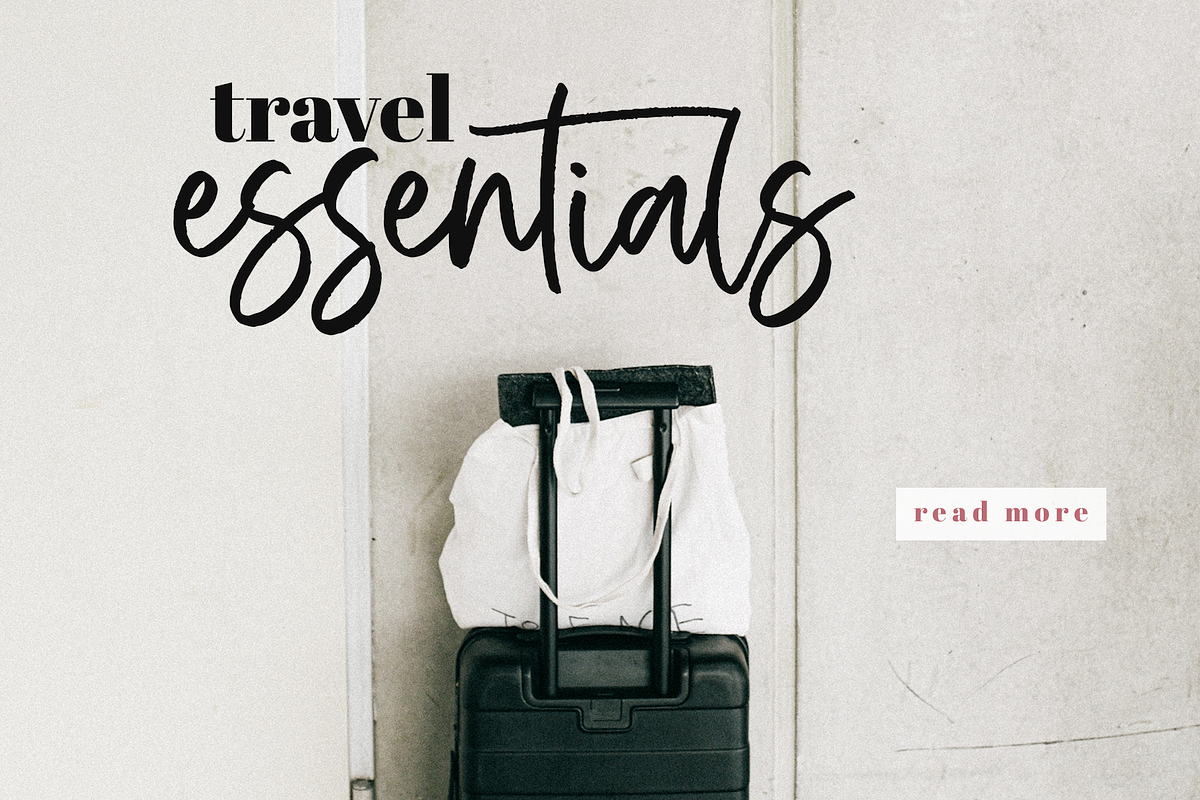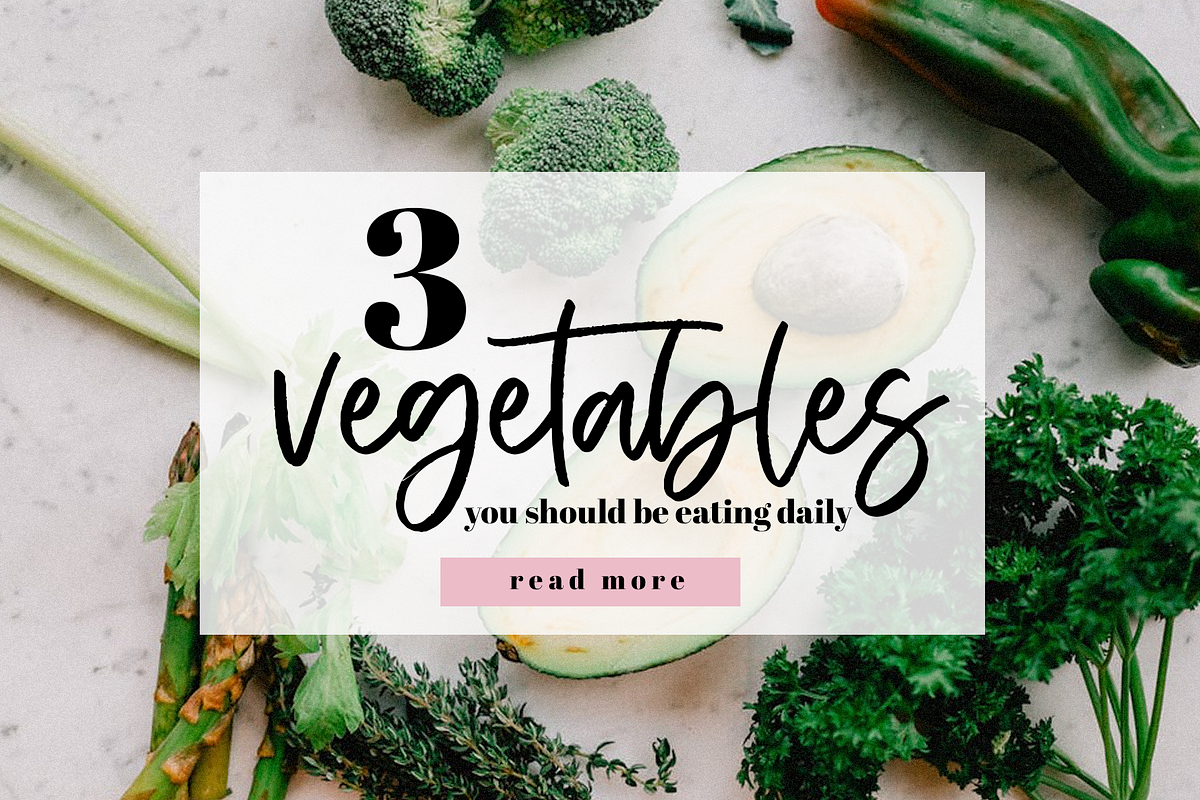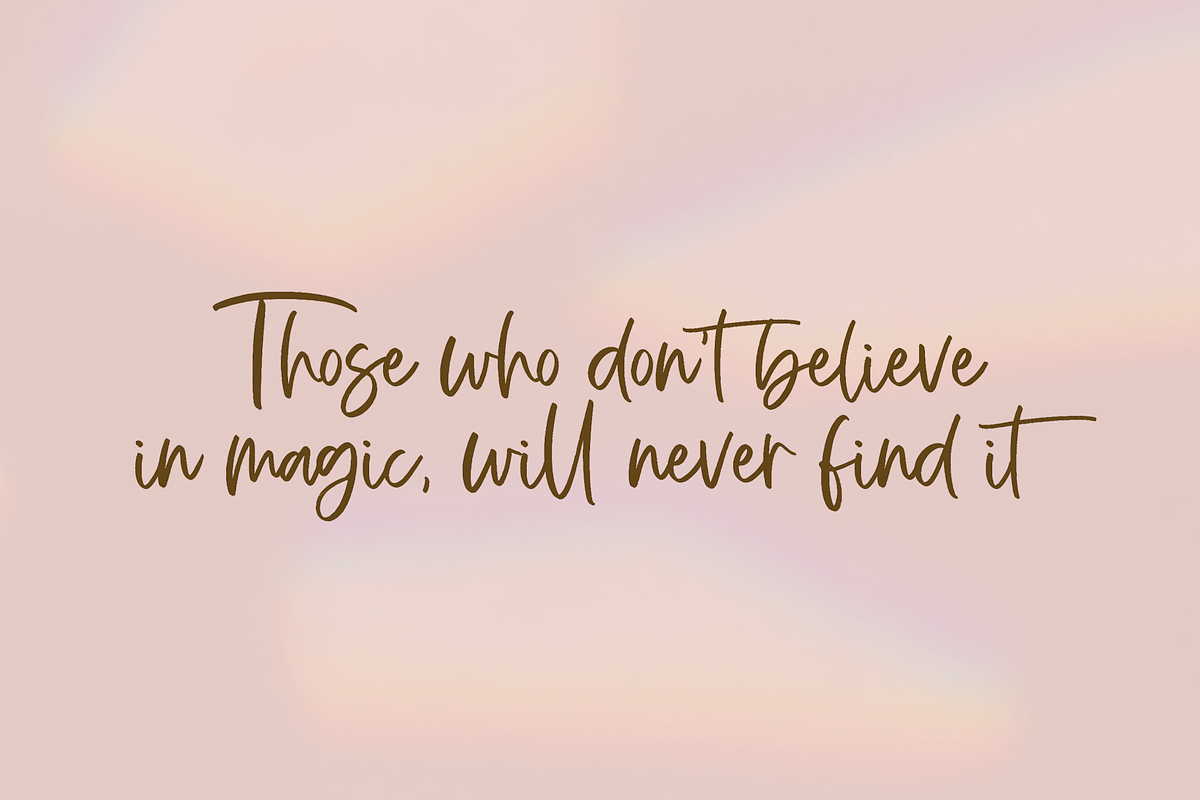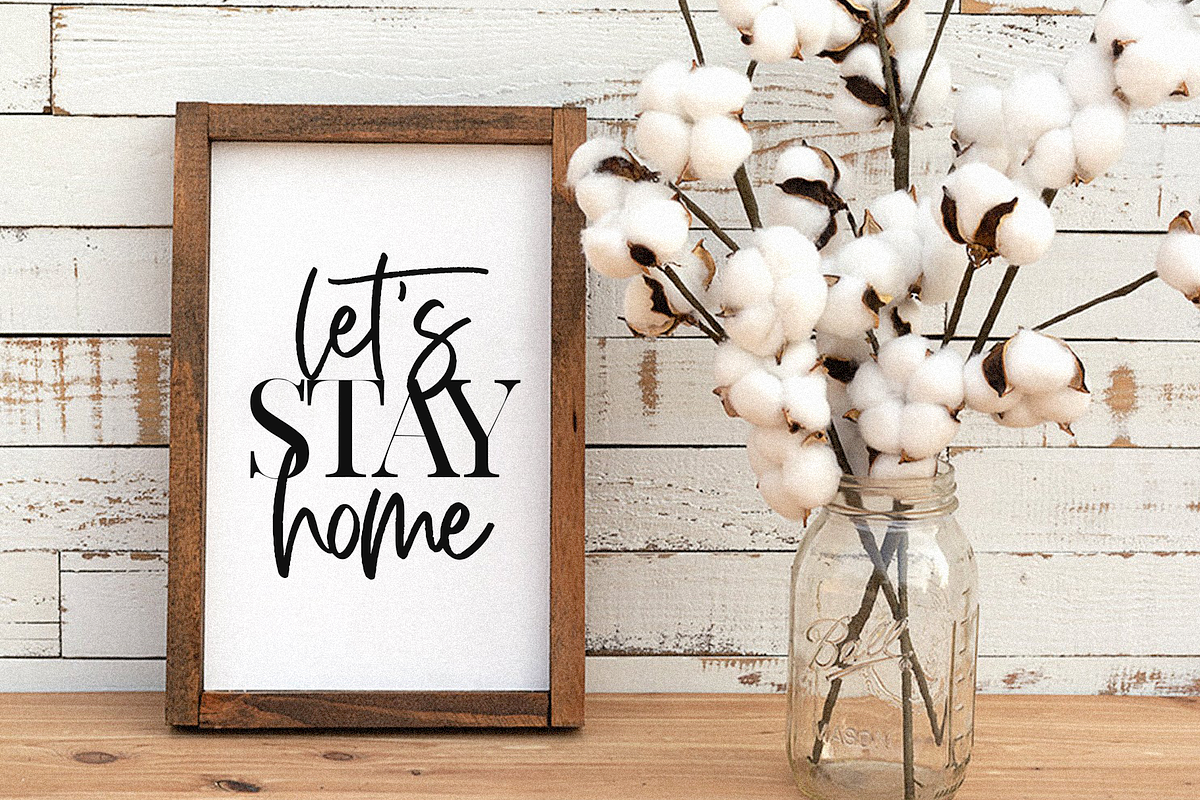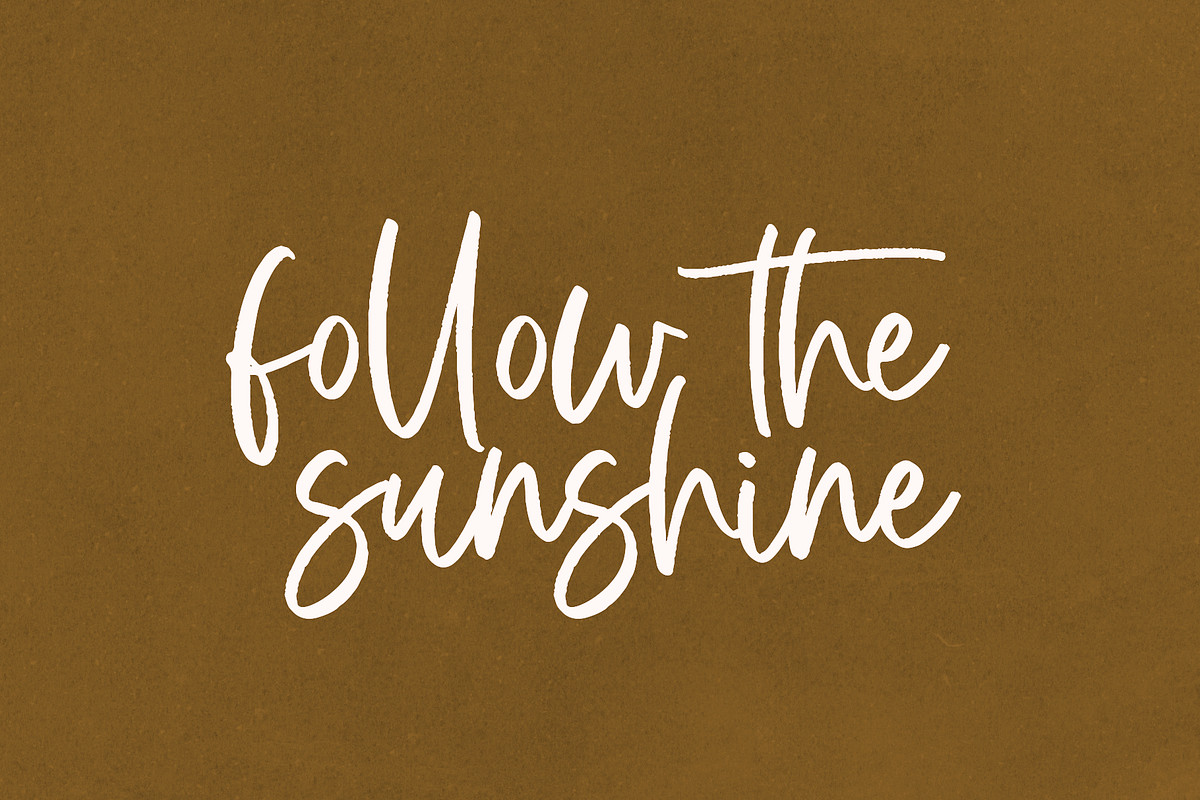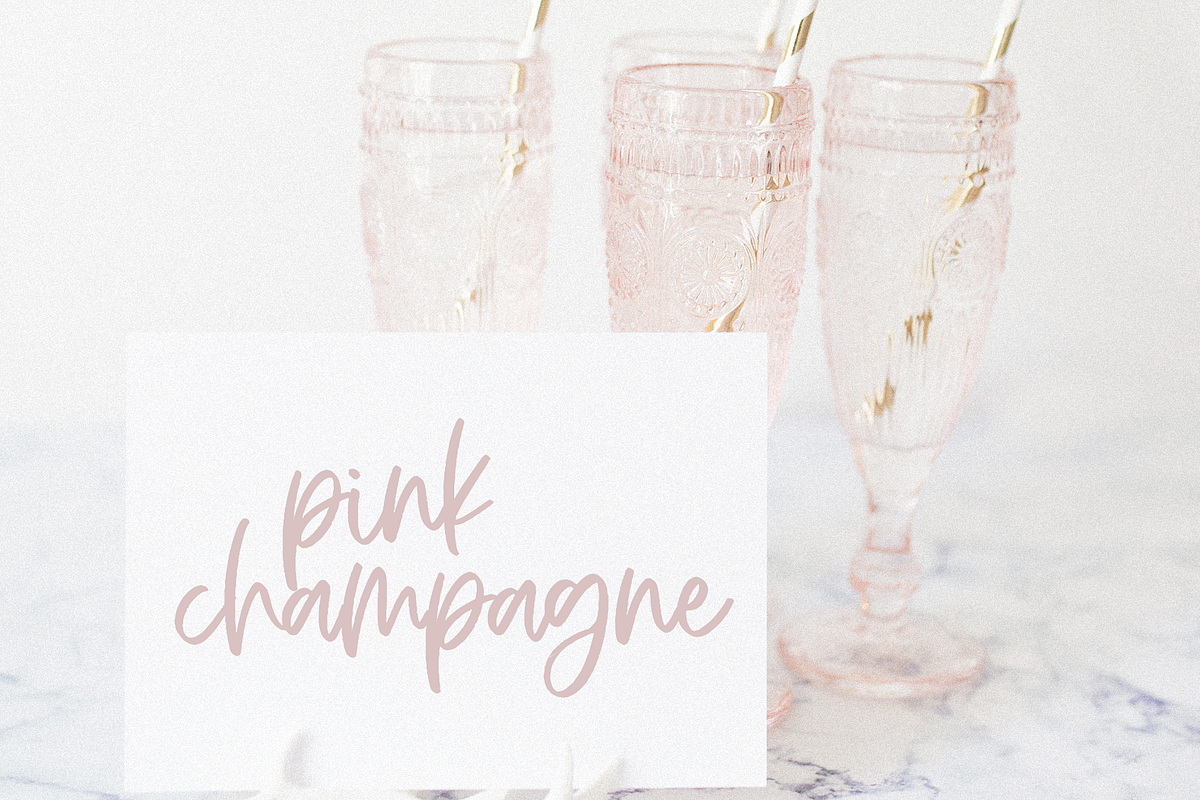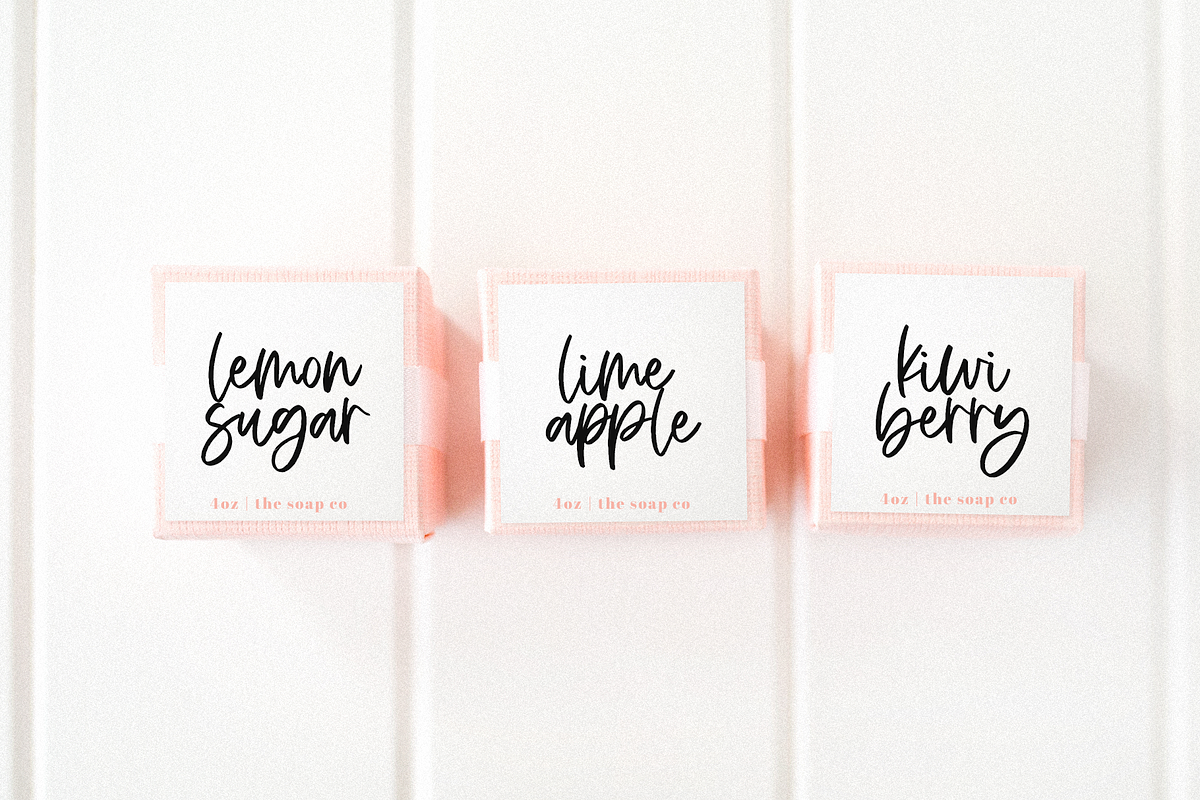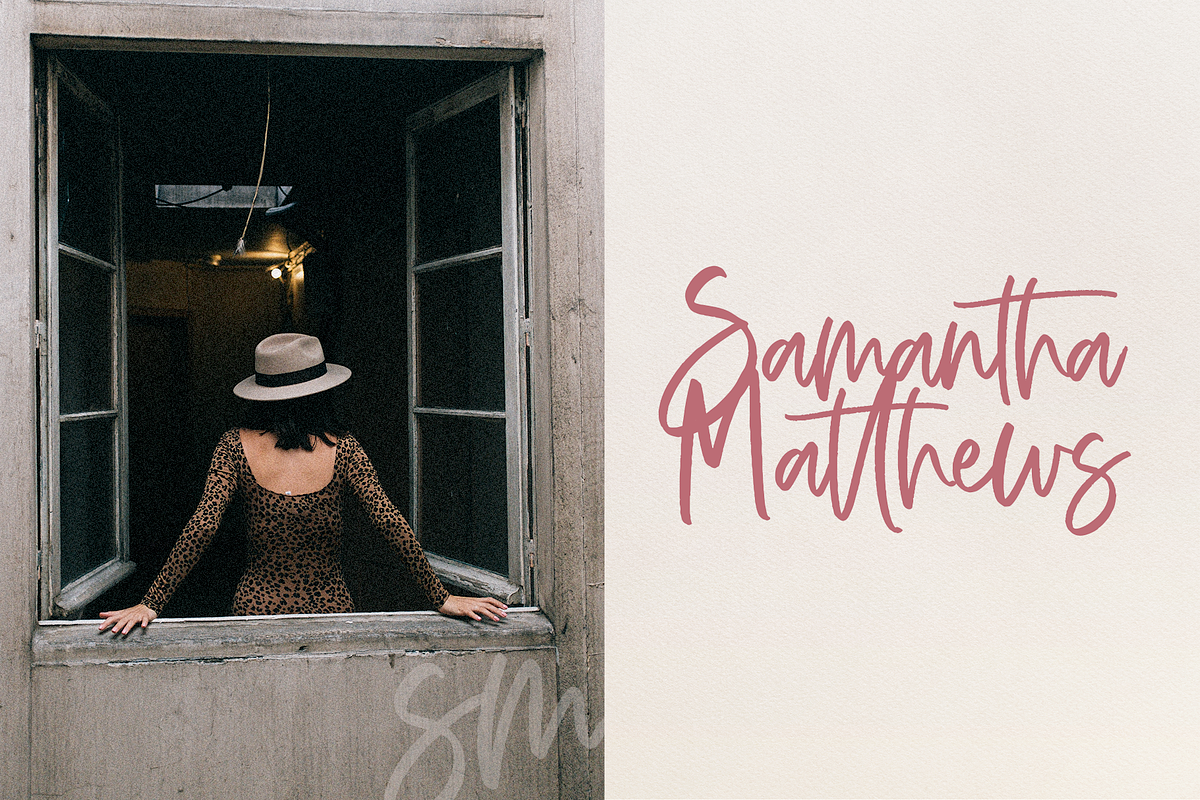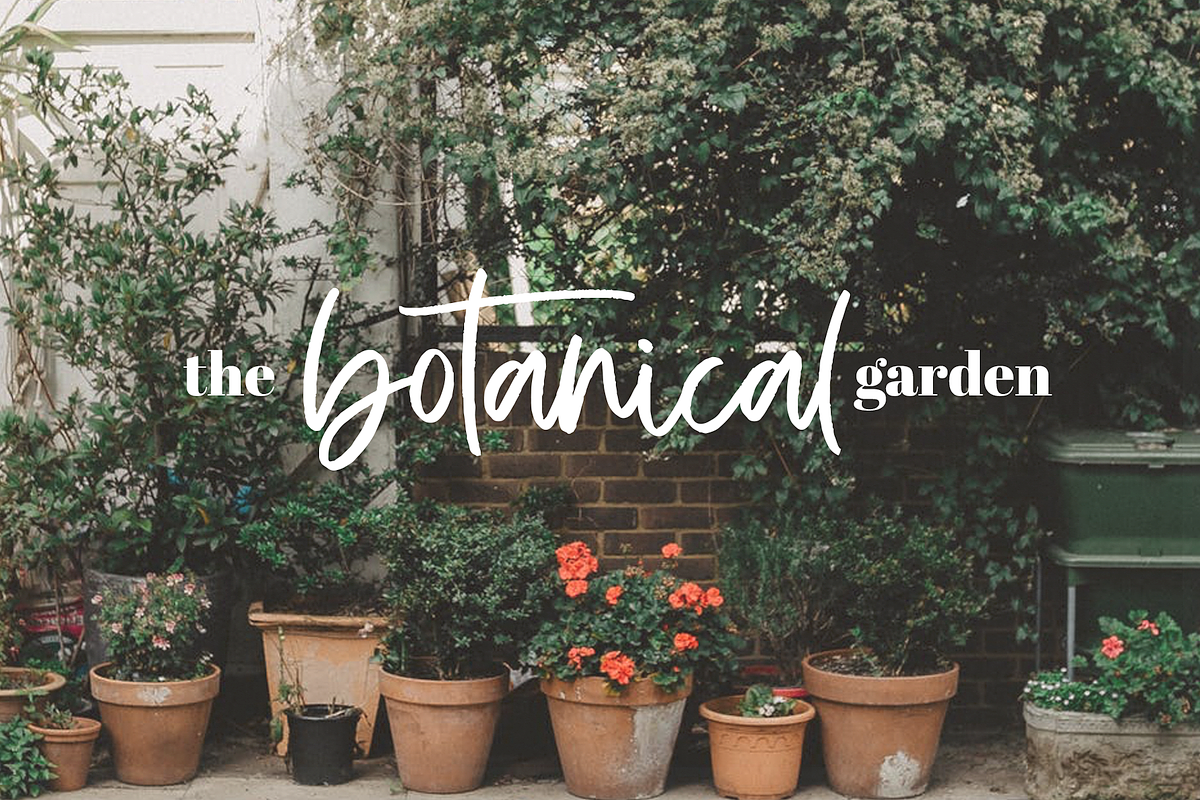
Buttercup | Handwritten Script Font
Buttercup is a modern handwritten font with a brush texture. The authentic texture and exaggerated letters makes it a perfect choice for branding and digital designs.
Use this font for logos, social media, websites, blogs, instagram, social media, business cards, branding, and more!
Most accent characters included